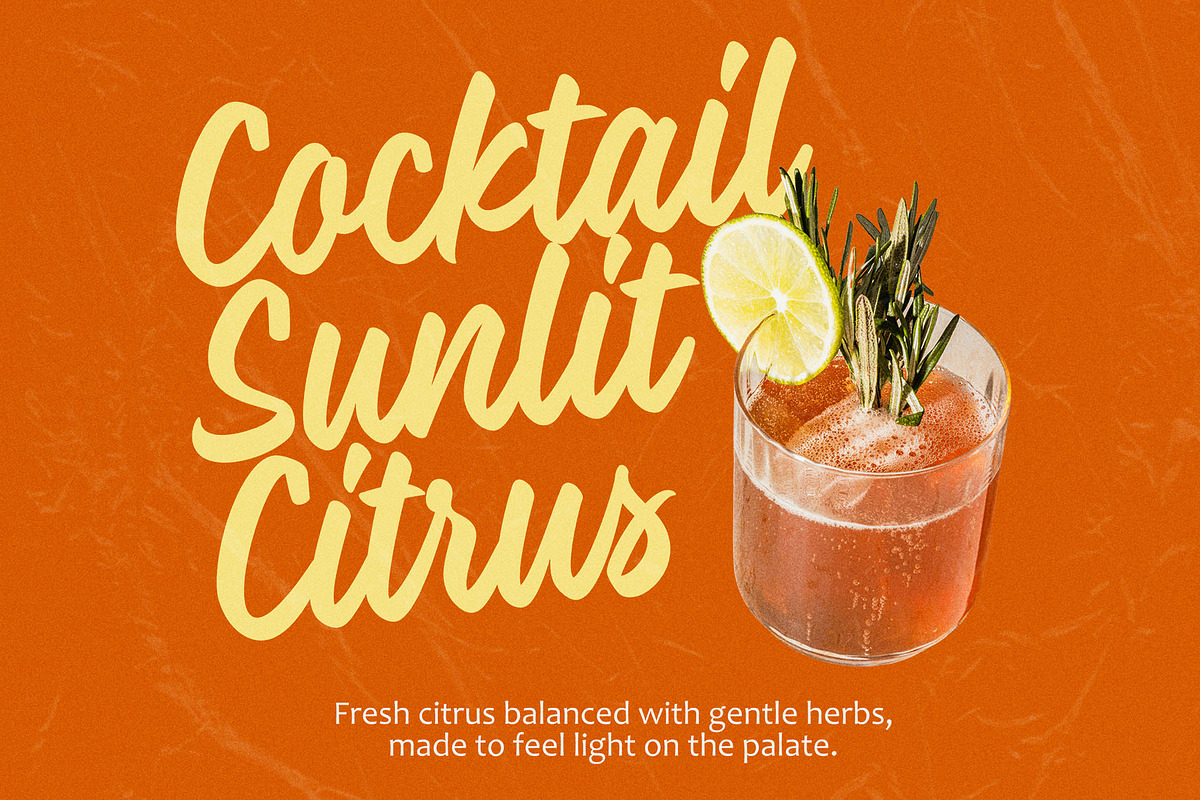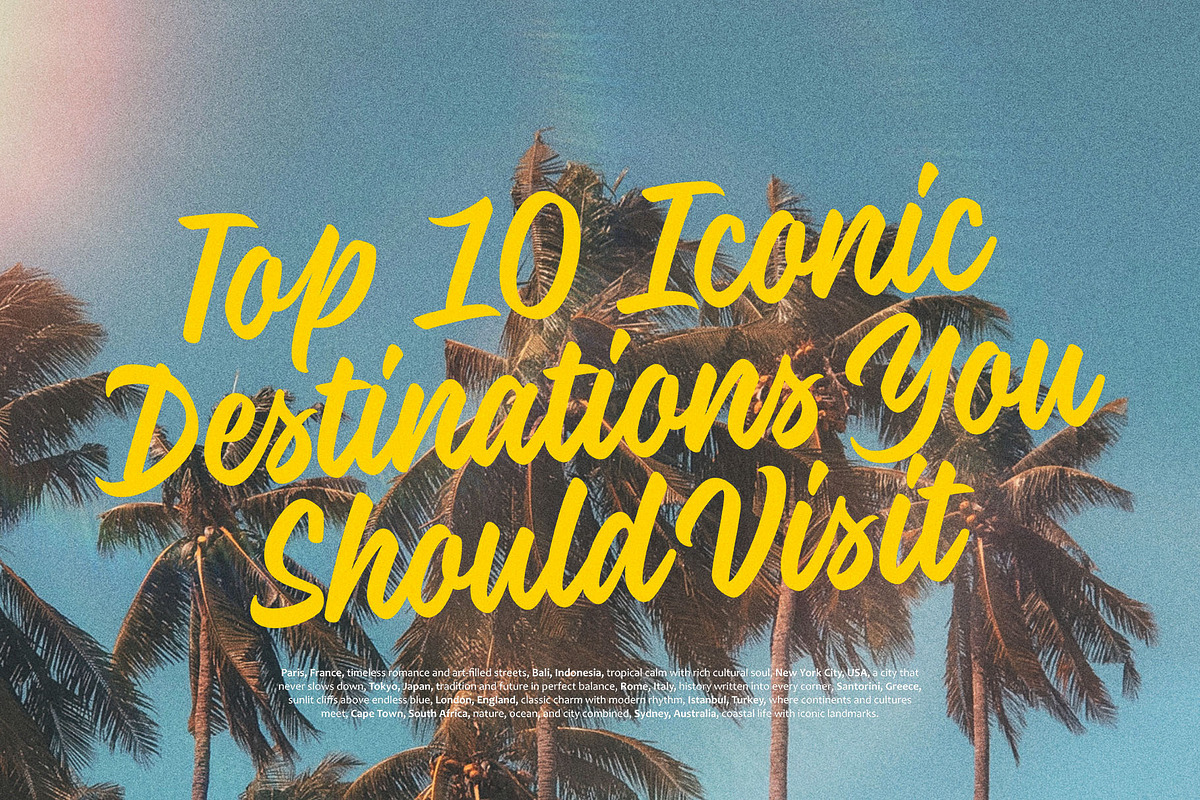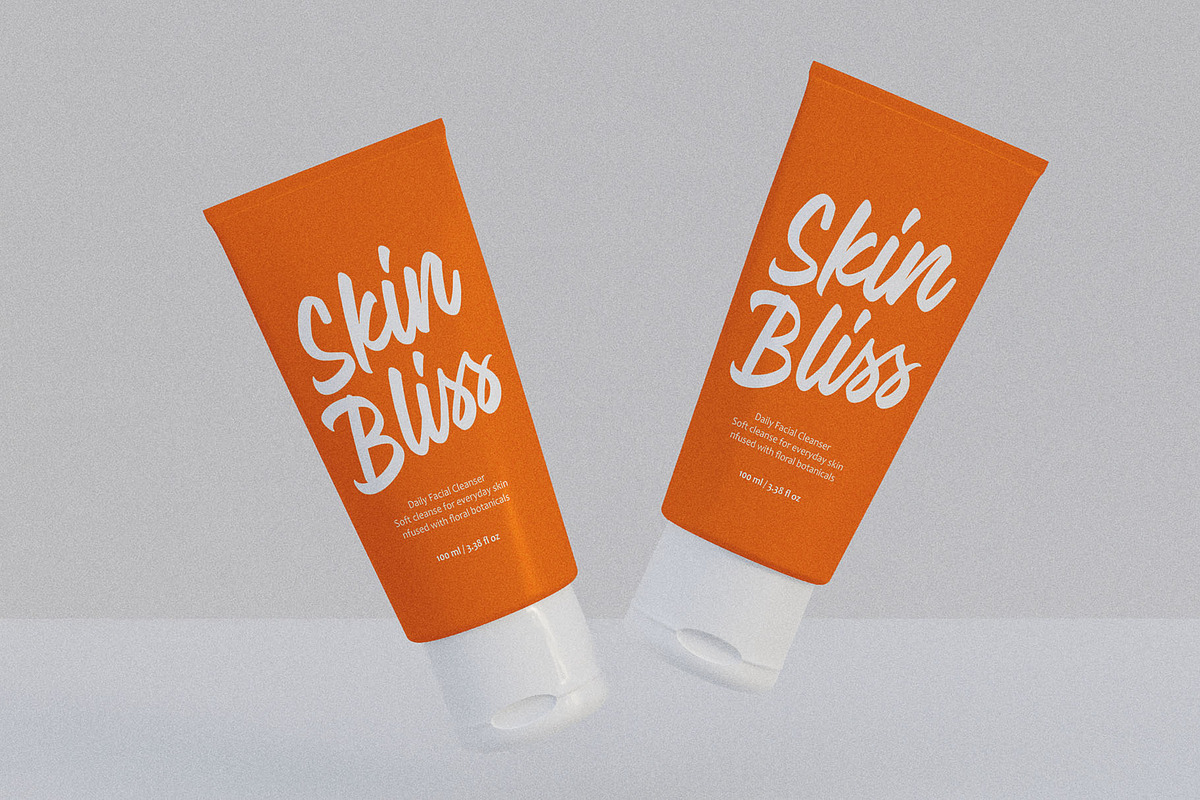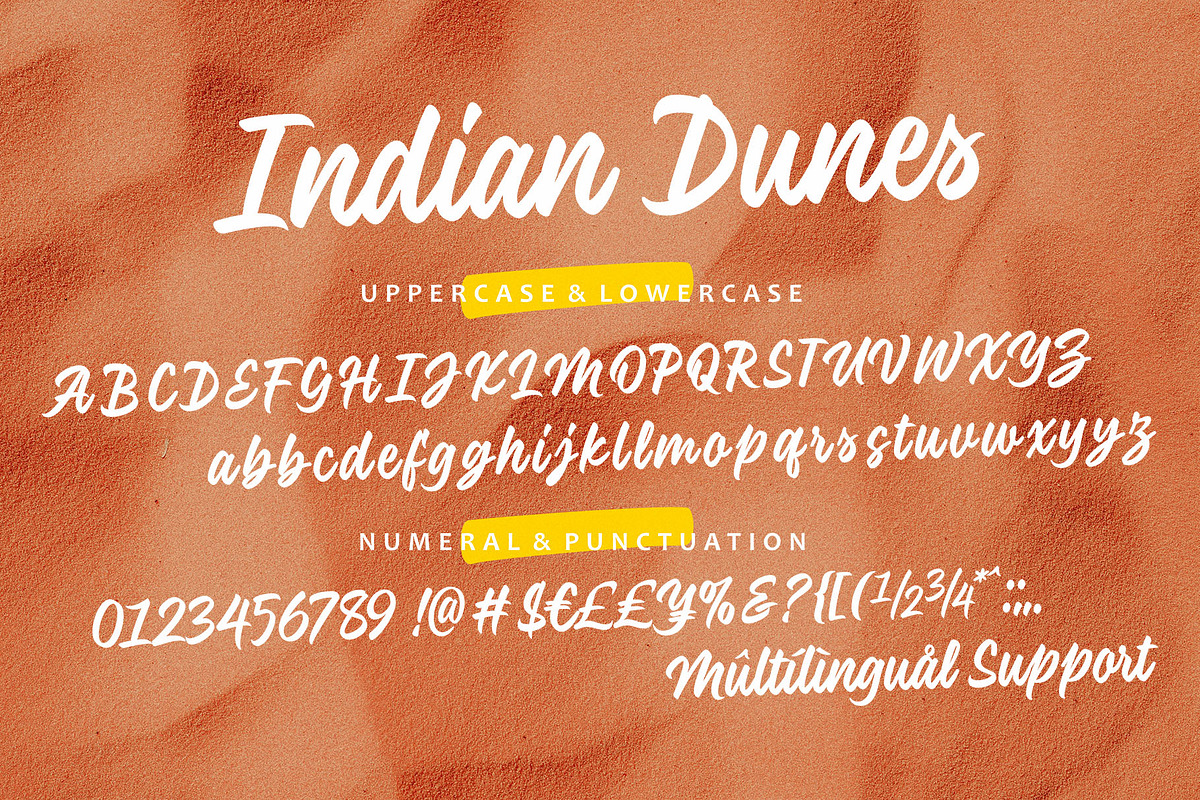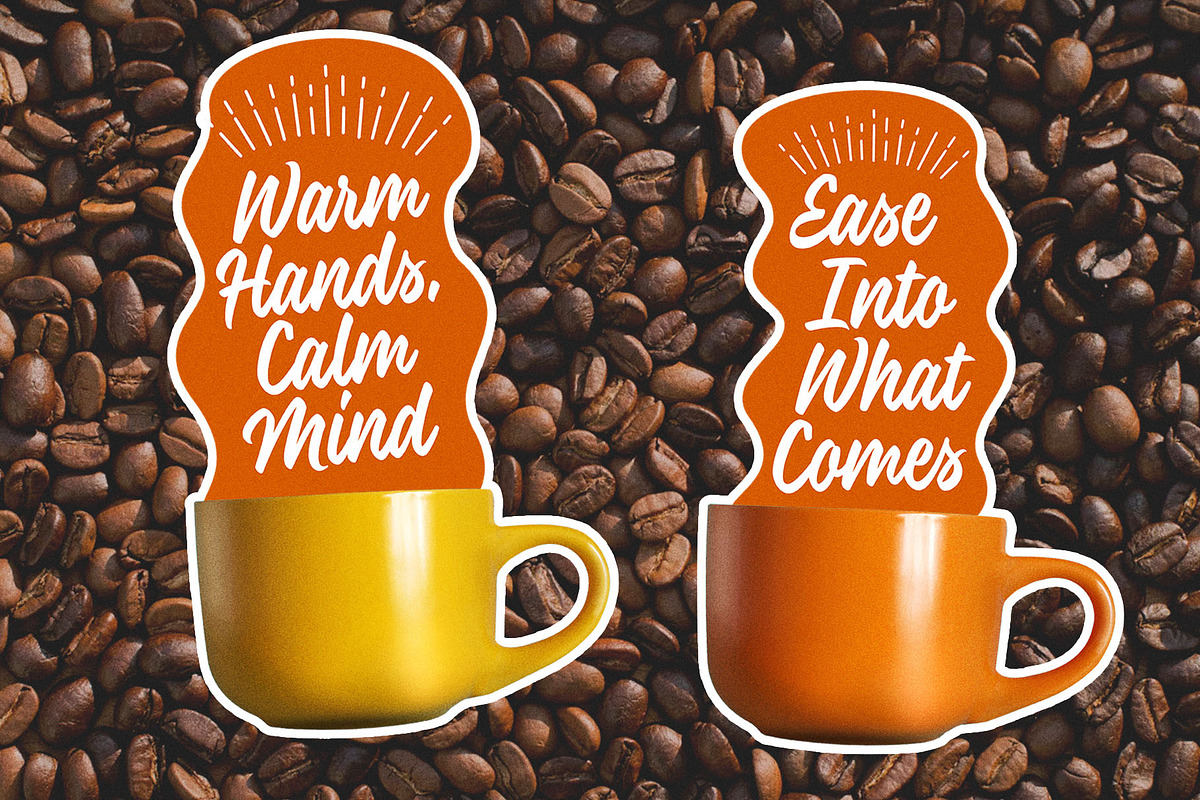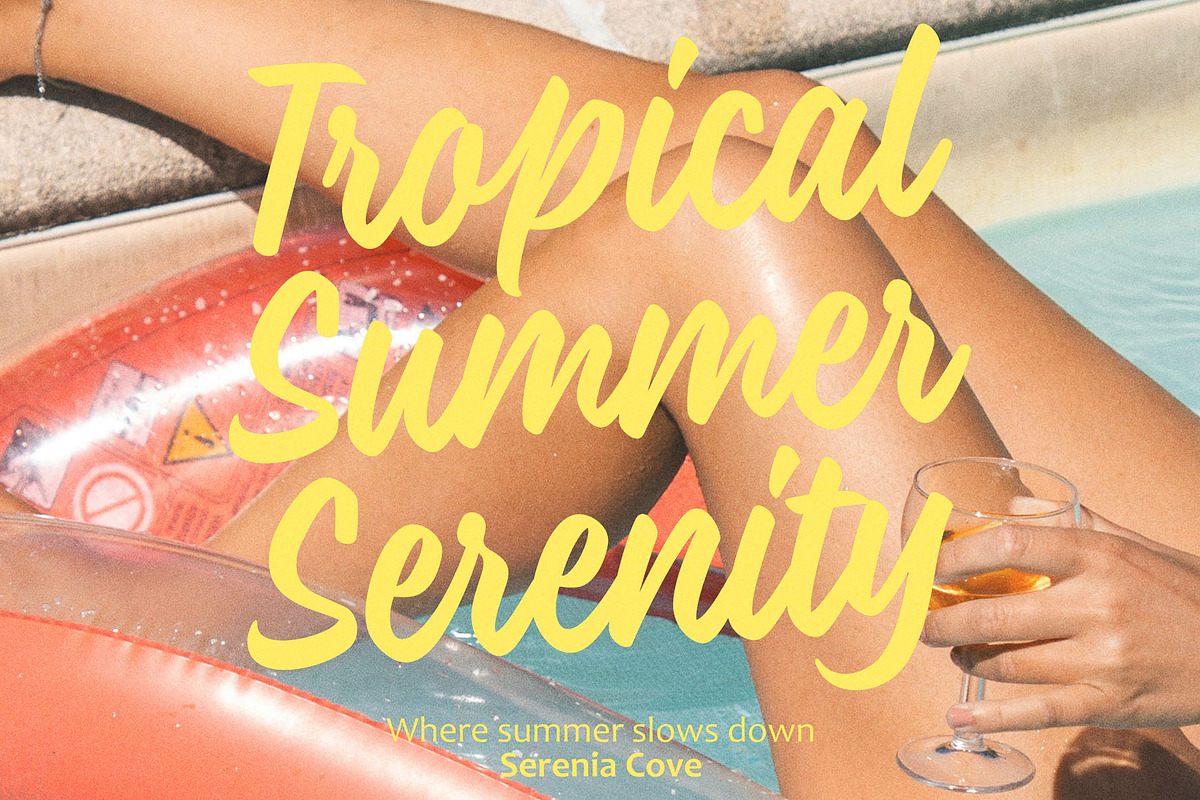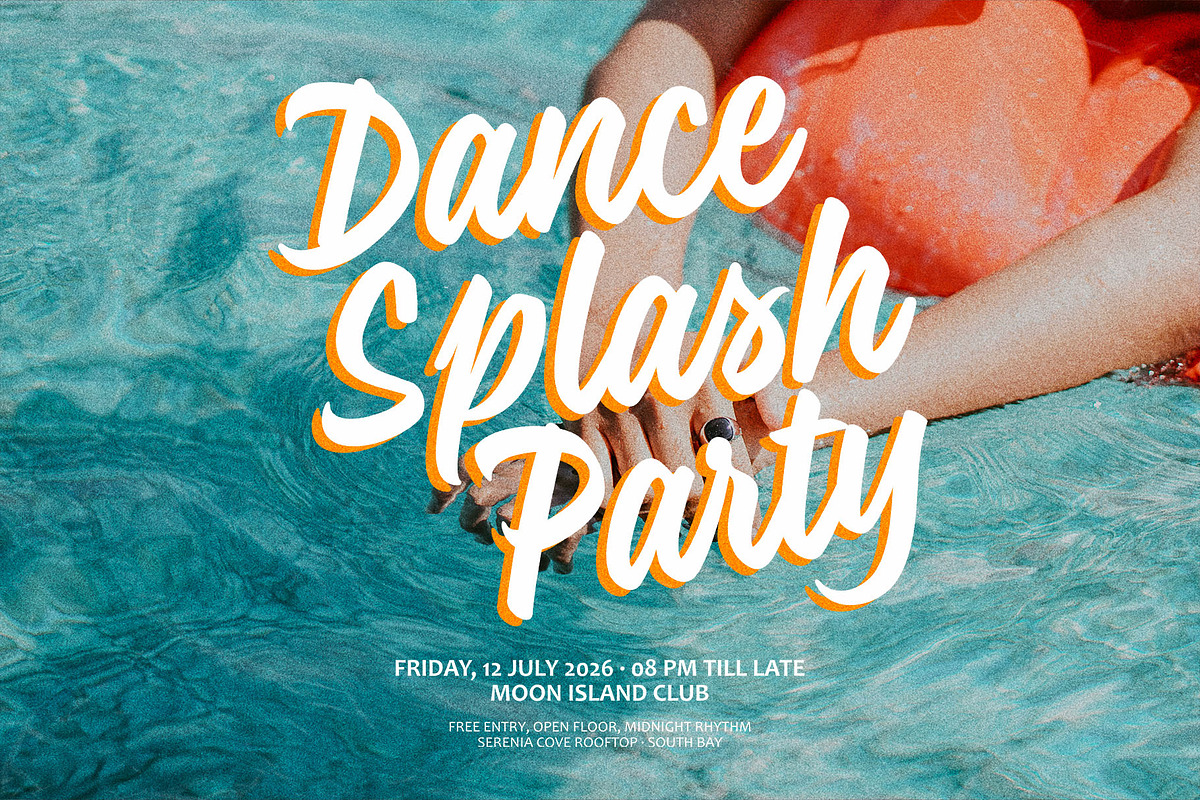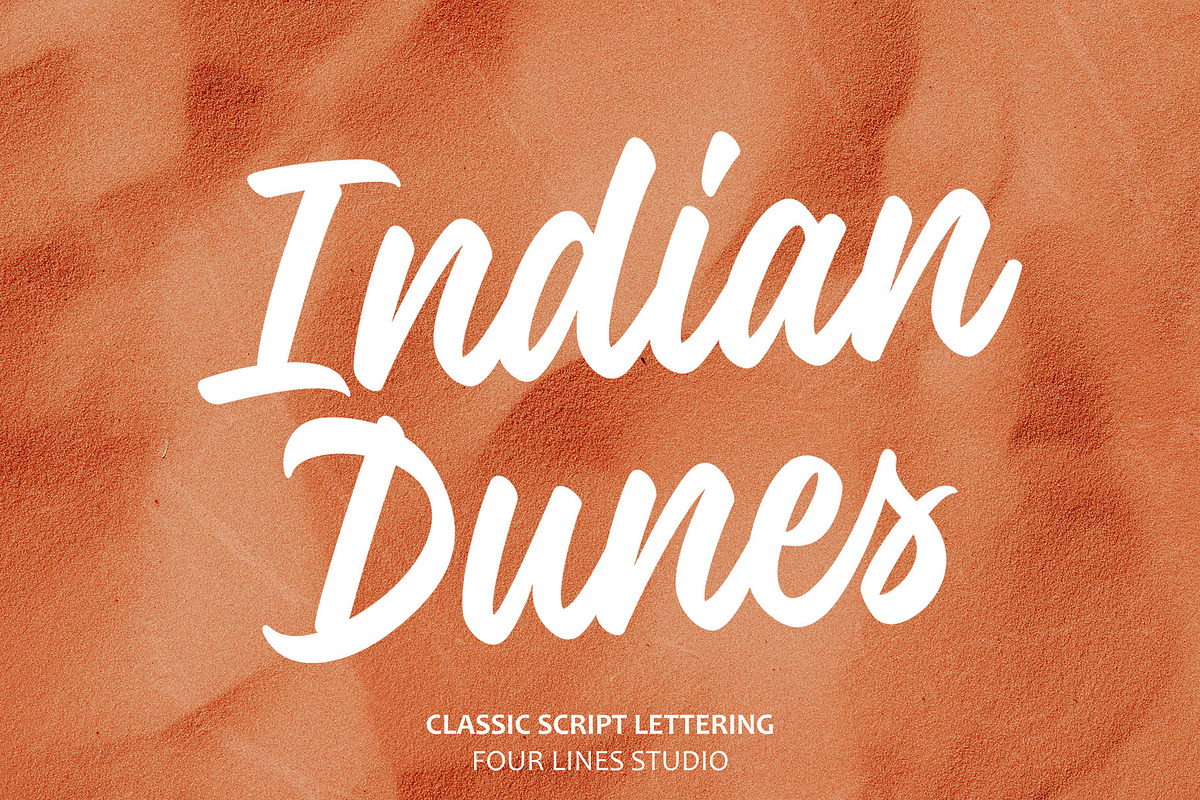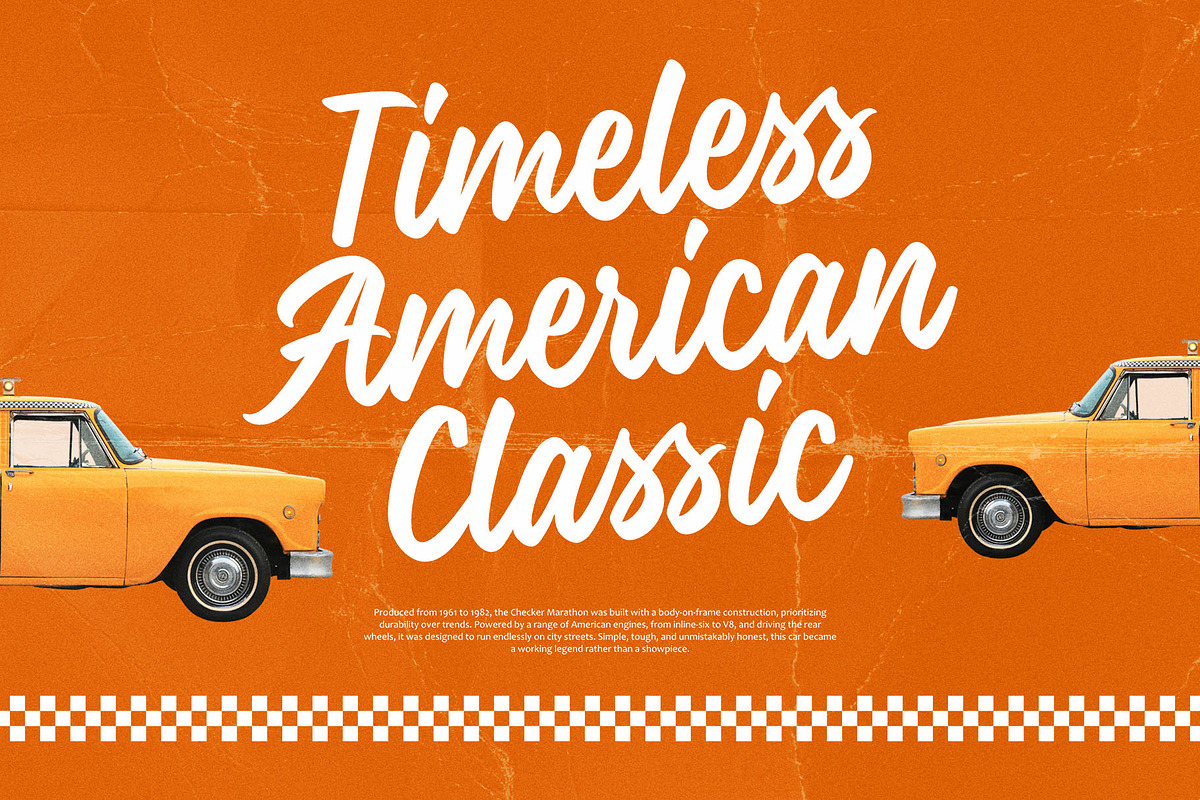
Indian Dunes – Modern Casual Script
Indian Dunes is a modern casual script font inspired by warm landscapes, sunlit moments, and relaxed lifestyles. Designed with smooth curves and balanced strokes, this typeface delivers a friendly yet confident feel, making it perfect for posters, branding, packaging, lifestyle quotes, summer campaigns, and social media visuals. Indian Dunes combines legibility with personality, allowing your designs to feel expressive without losing clarity.